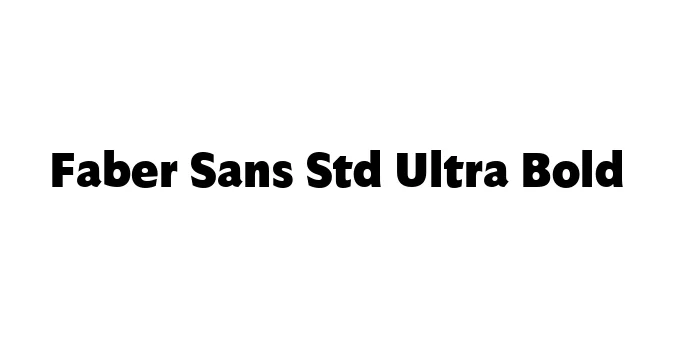
Faber Sans Std Ultra Bold
Designed by Gert Wiescher
Faber Sans Std Ultra Bold is a robust and geometrically structured typeface designed by Gert Wiescher. It belongs to the larger Faber Sans family, which is known for its clean lines, balanced proportions, and exceptional legibility even in its heaviest weights. The Ultra Bold variant specifically offers a high-impact visual presence, making it ideal for commanding attention in modern graphic design projects.
Originally released through Wiescher Design, this font draws inspiration from classic geometric sans-serifs while incorporating contemporary refinements. Its wide stance and thick strokes provide a solid foundation for branding and advertising. Whether used in digital interfaces or print media, Faber Sans Std Ultra Bold maintains a professional and authoritative aesthetic that suits a variety of high-visibility applications.
Faber Sans Std Ultra Bold Best Uses
Perfect for high-impact titles and large-scale posters.
Excellent for bold logo designs and corporate identity projects.
Grabs attention in social media graphics and outdoor billboards.
Effective for hero sections and prominent call-to-action buttons.